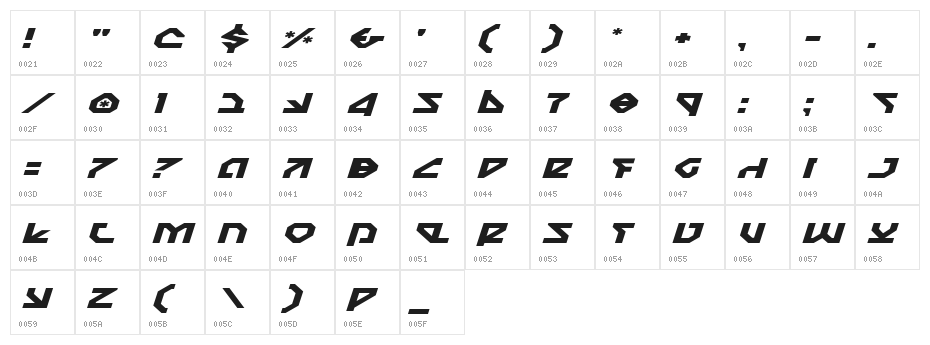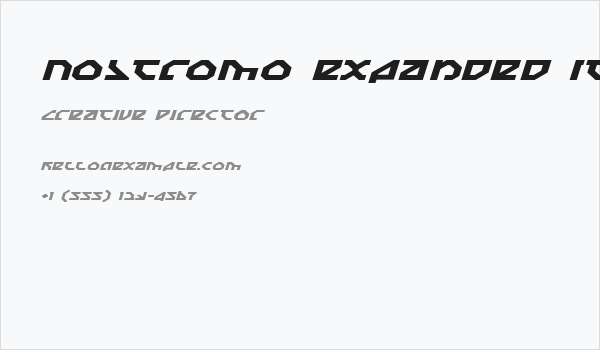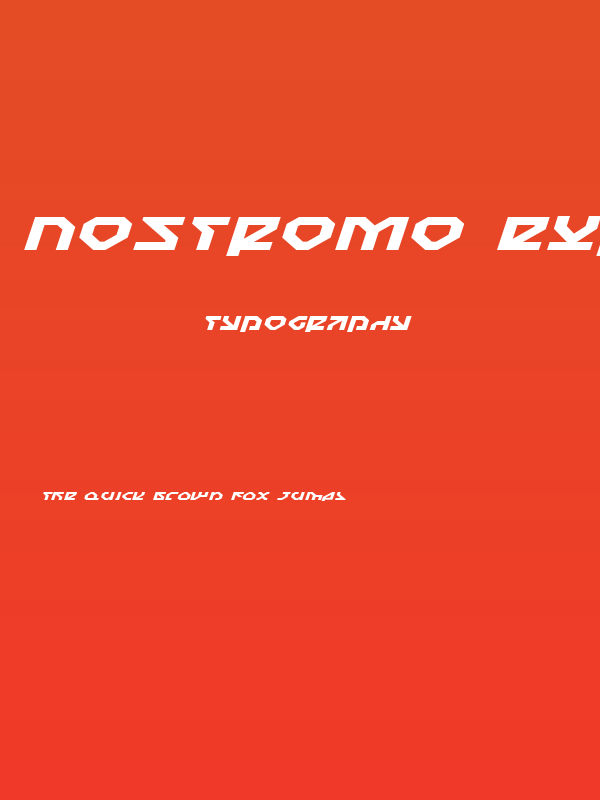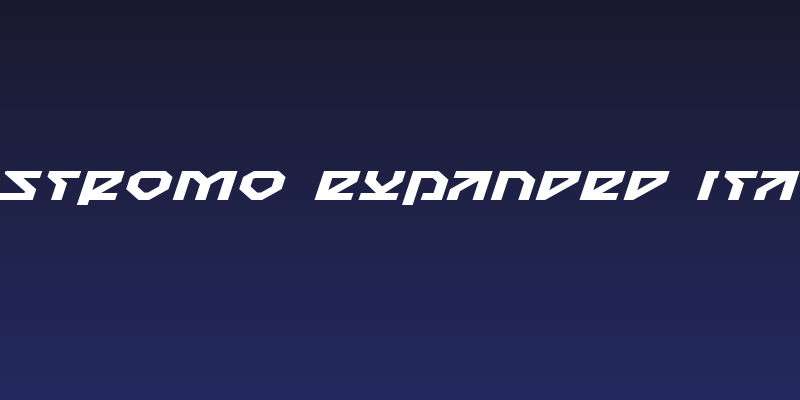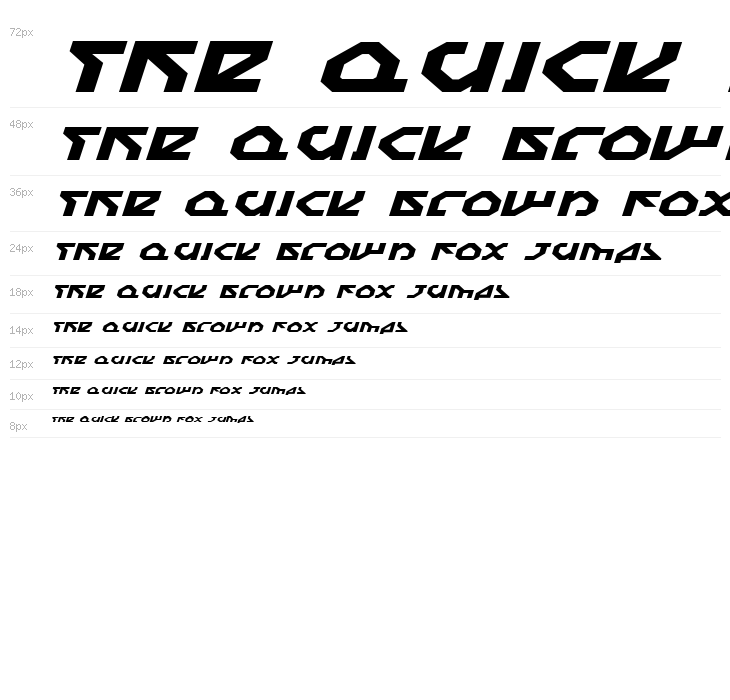
Nostromo Expanded Italic Font
Nostromo Expanded Italic Description
This font features a futuristic and angular design, characterized by sharp edges and geometric shapes. The letters are italicized, giving a sense of motion and dynamism. The expanded width of the characters adds a bold presence, making it suitable for attention-grabbing headlines. The font maintains a consistent stroke thickness, resulting in a low contrast appearance. Its unique style is reminiscent of science fiction themes, making it ideal for projects that require a modern and edgy look.
Overall StyleFuturistic
Proposed ProjectsIdeal for sci-fi themed posters, video game titles, tech branding, and futuristic event invitations.